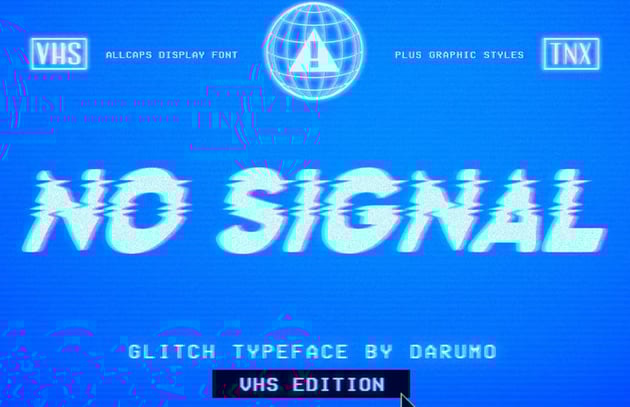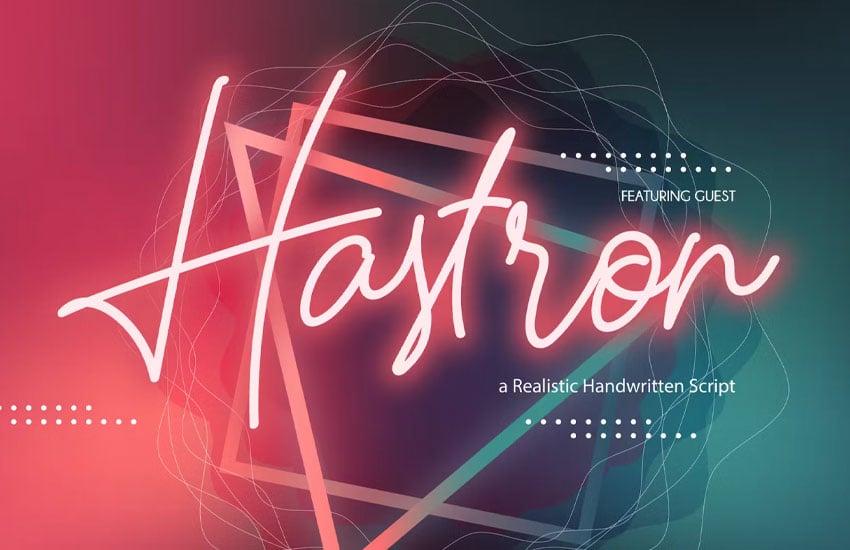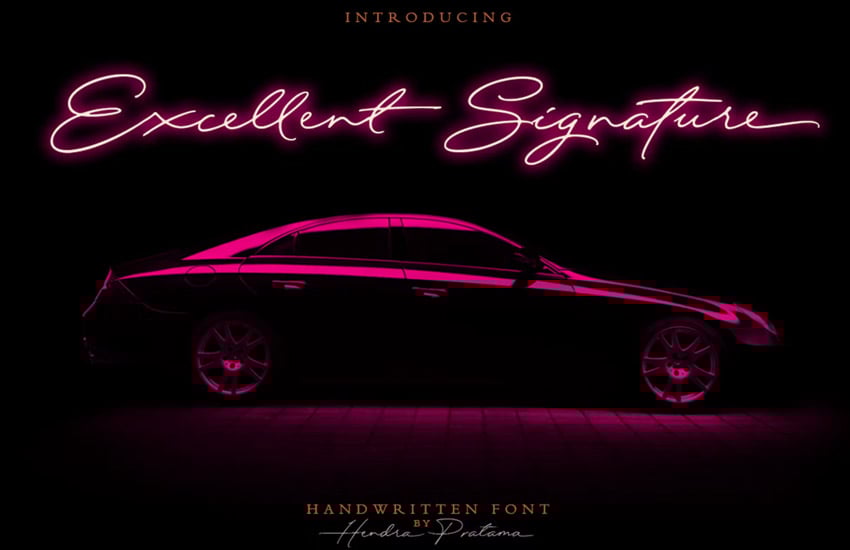
21 Best Synthwave Fonts
Check out this list of trendy synthwave fonts! Find your next favorite 1980s font today. Choose from an 80s chrome font, neon lights, signatures, and much more. If you're looking for synthwave design inspiration or the perfect addition to your 80s synthwave font collection, you're in the right place.
Isn't this an eye-catching, memorable font? It's the perfect choice if you're looking for a 1980s font for display font purposes. It works very well in a high-contrast color, but could also be a great candidate for layering.
Check out this stylish 1980s font duo. This is a great way to simplify your search for the perfect synthwave fonts because you get both in one convenient font download. You get a stylish 80s chrome font and an energetic signature too.
Looking for a synthwave font with some bold appeal? This font is a statement maker! It layers well and is suited to other text effects. Or try this bold font in a solid color with high contrast against other elements in your composition.
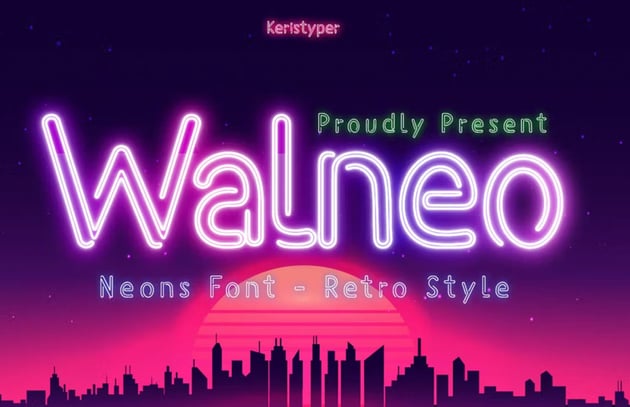
Neon lights are often very much at home in a synthwave-inspired composition. This font takes a different approach to the neon look. It suits the 80s look very well. Try it out on some different synthwave backgrounds.
This is a bold, memorable synthwave font. The lines in these chunky letters make it work well both in solid colors and with a gradient applied. It makes it easy to achieve that 80s lined look that is often popular in synthwave styles.
Neon lights and outer glow can work so well when you're targeting that vintage 80s look and feel. This font duo keys right into that, both with a traditional neon light look and a matching signature font. Get both fonts in one download.
Looking for a neon sign inspired font with some extra flair? This synthwave font has some added line work that makes it a memorable choice. Try it out in different colors, or maybe even with the lights out. It's a fun font choice.
Isn't this 1980s font dramatic? It works perfectly with a gradient overlay, and it layers well too. Use this for points of emphasis to command attention in your designs. It would be great for titles and headlines in a synthwave design.
This 1980s font's vibes are right on target. It's a tall font, making it a great choice for larger type in your designs. Try pairing this font with simple, line-based design elements to push that sign aesthetic further.
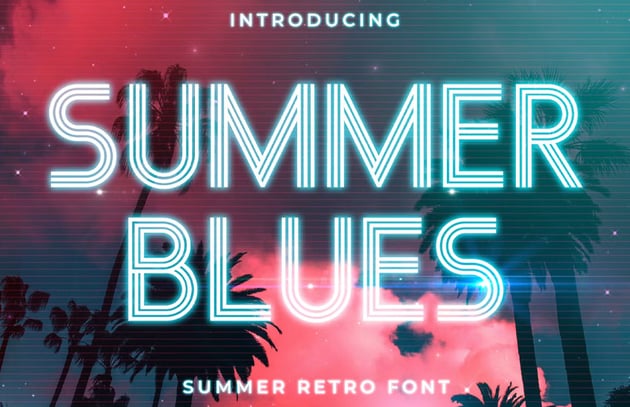
Bold type can be a simple way to create a focal point, and this synthwave font does it well. The added lines bring some additional interest too. Notice how well it works with an outer glow added. It's got such clear retro vibes.
Brush fonts can work in a synthwave scenario too, especially with the right design choices. Check out this energetic font. Between the strokes and their direction, they imply a lot of movement and energy too.
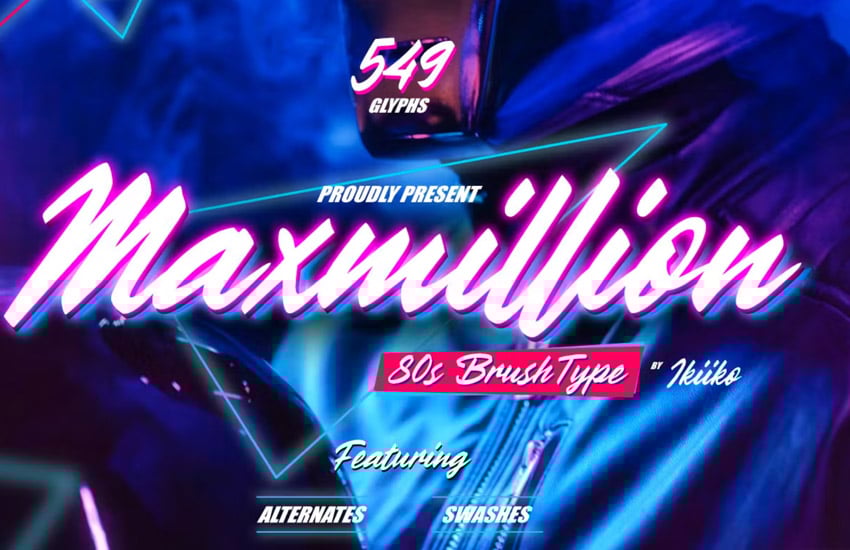
This handwriting font has a lot of energy and flair. It pairs on top of a 1980s themed background really well, especially with a bit of outer glow. This is a font that could layer nicely too, if you want to push the look even further.
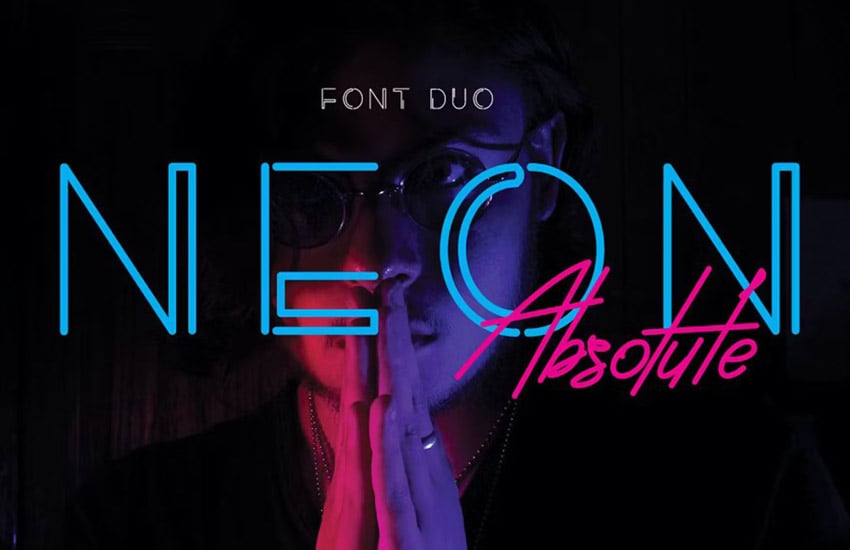
Love a clean, sleek neon look? Then you're going to love this synthwave font duo. Check out how good these fonts look together. Take the effort out of finding the perfect font pair. These two are already a great 80s match.
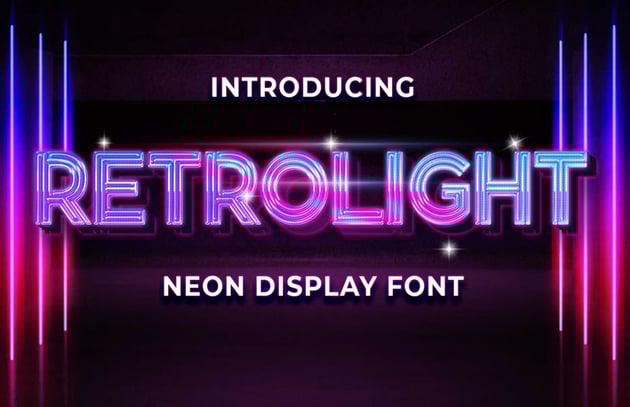
If you like a lined font, this one is a great fit. You can push it further into a 1980s look with the right design choices, but it could also go towards the 70s, if you went with more muted colors. This one has lots of design potential.
You have a lot of choices when it comes to synthwave fonts. There are so many different 1980s font aesthetics you can choose from. Whether you opt for a stylish signature or an 80s chrome font, there's a lot you could do. Which synthwave font styles are your favorites?